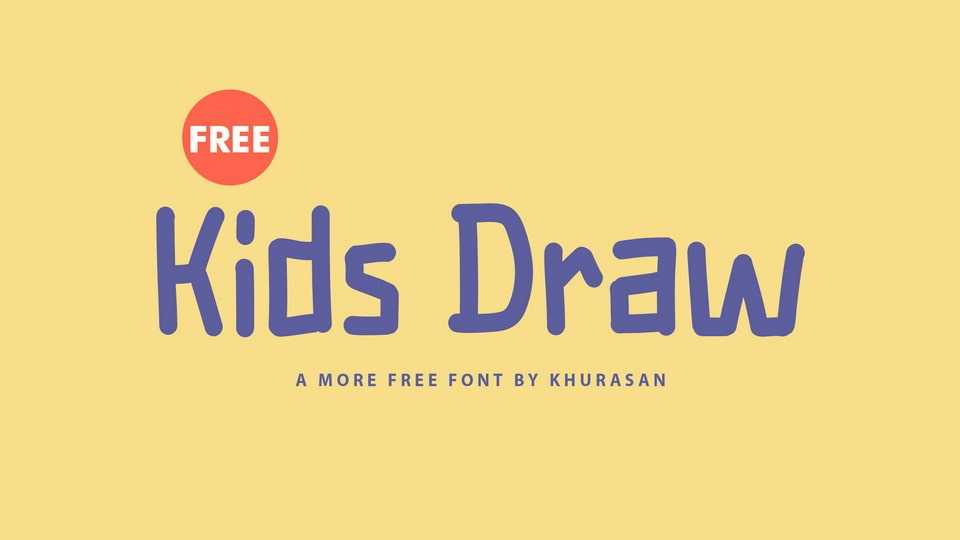
Download Kids Draw font, a hand drawn typeface that embodies the art of carefree penmanship. Its playful strokes and whimsical curls create a handwritten style that exudes a lighthearted and approachable vibe.